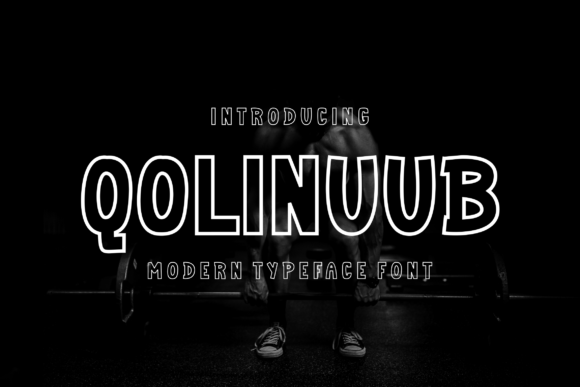
Unleash the Power of Qolinuub: The Ultimate Display Font for Captivating Tech Websites
Step into the realm of digital brilliance with Qolinuub, the modern outline display font that empowers your tech website with an aura of sophistication and innovation. Its meticulously crafted characters dance across the screen, exuding a symphony of casual elegance and professionalism that resonates with your target audience.
Qolinuub's unique charm lies in its ability to elevate your website's visual appeal while maintaining a touch of approachability. Its graceful curves and sharp angles create a striking balance, effortlessly guiding the reader's eye through your content. Whether you're showcasing cutting-edge products, delving into complex technical concepts, or simply crafting a visually stunning online presence, Qolinuub provides the perfect typographic foundation.
But Qolinuub is more than just a beautiful face; it's a strategic tool that amplifies your message and drives conversions. Its highly legible forms ensure that your content is easily absorbed and understood, while its subtle variations in weight and thickness add depth and dimension to your designs. By employing Qolinuub, you not only enhance the aesthetics of your website but also enhance its usability and effectiveness.
Let Qolinuub be your digital muse, inspiring you to create a website that captivates, informs, and leaves a lasting impression on your visitors. Its versatility extends beyond tech websites, making it a compelling choice for a diverse range of applications. From sleek corporate presentations to eye-catching social media campaigns, Qolinuub seamlessly adapts to your creative vision, delivering unparalleled visual impact.
Indulge in the transformative power of Qolinuub today, and elevate your tech website to new heights of excellence. Let its modern aesthetics and functional brilliance captivate your audience, leaving an unforgettable mark on the digital landscape.